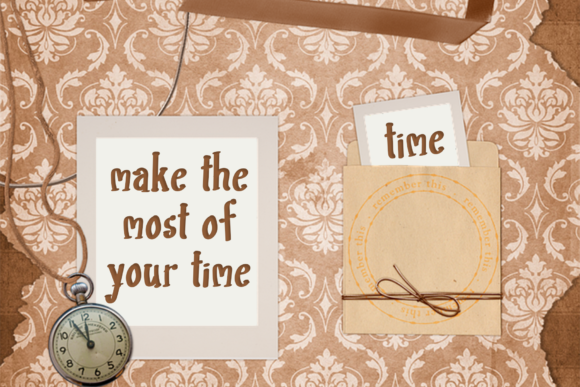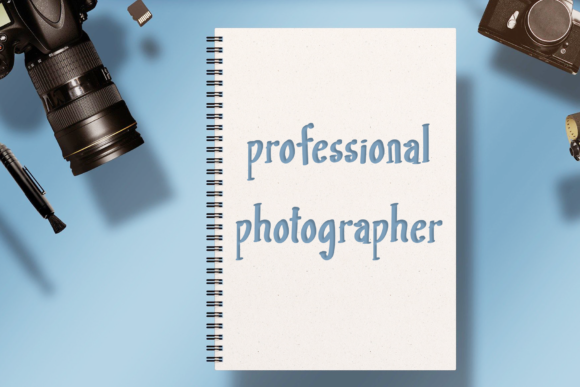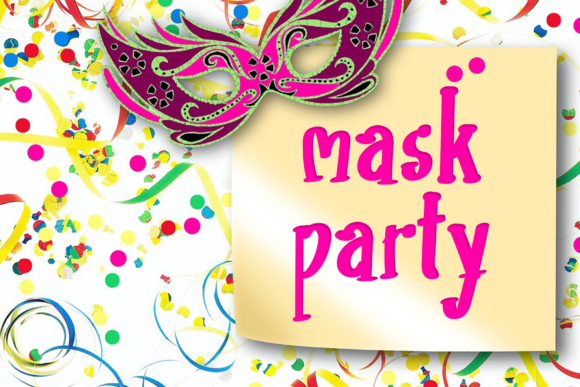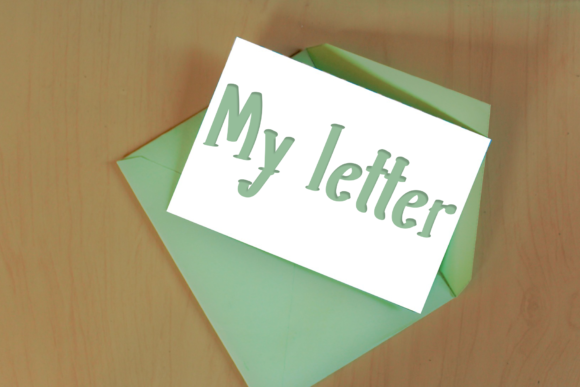
Introduction to Electric Dreams Font
Electric Dreams is a fun and bubbly display font.
This font is perfect for children themed designs, especially when combined with bright colors .